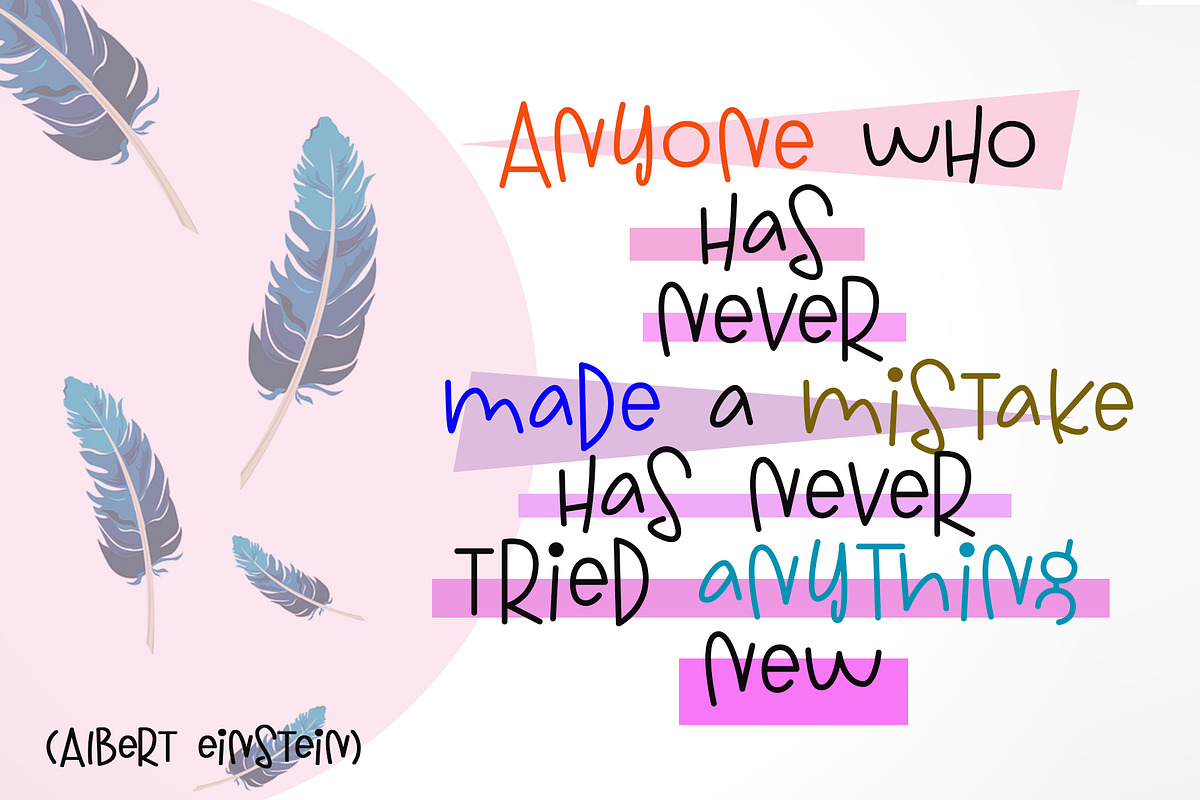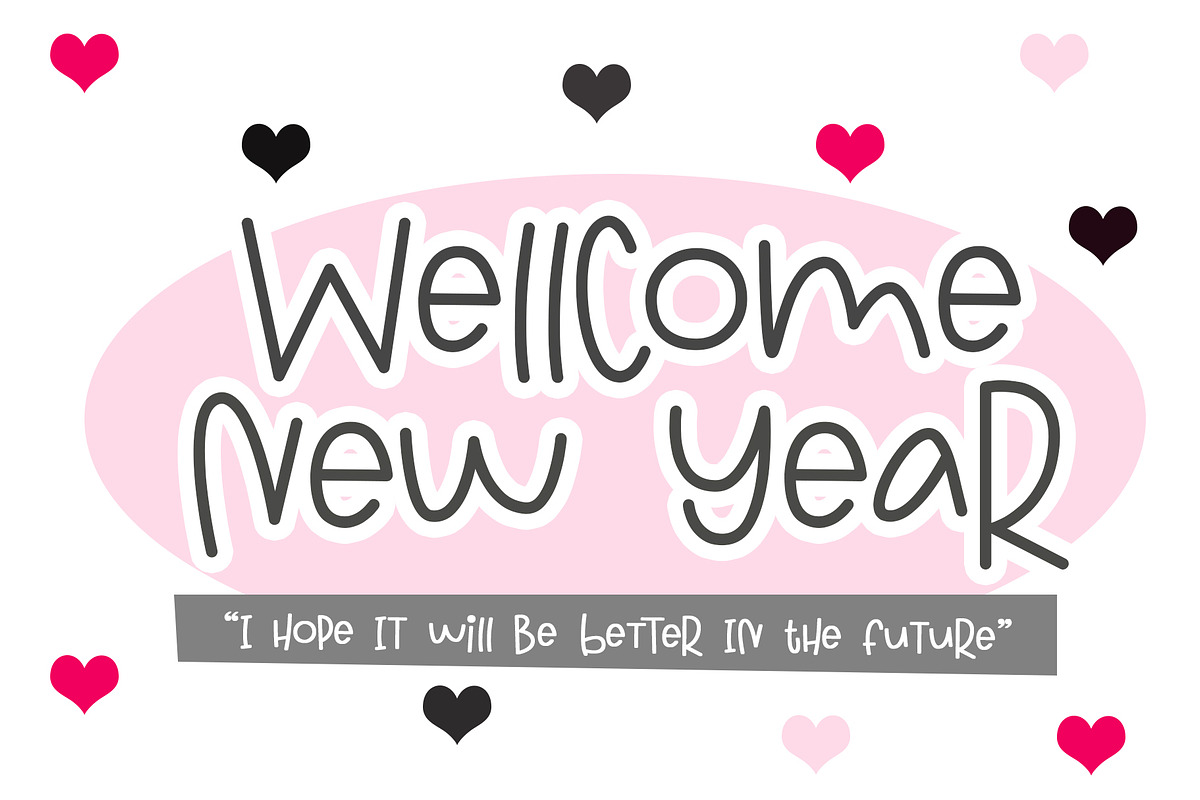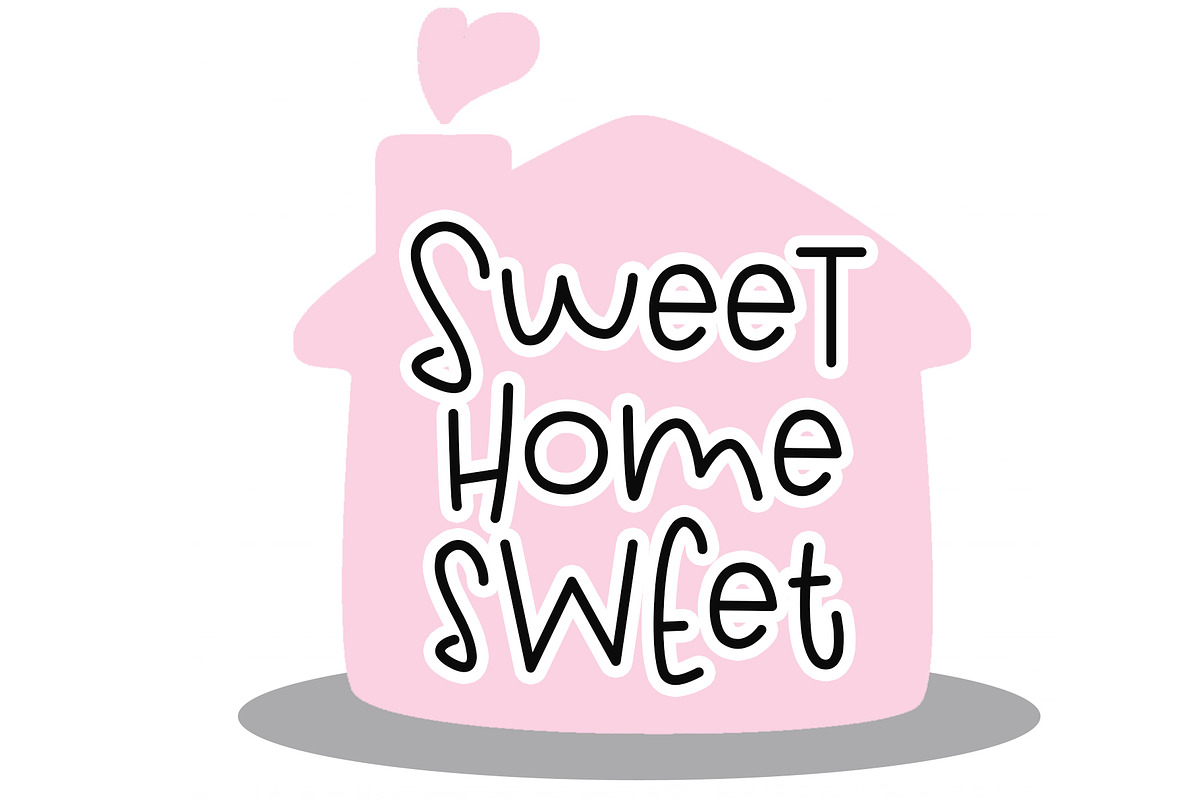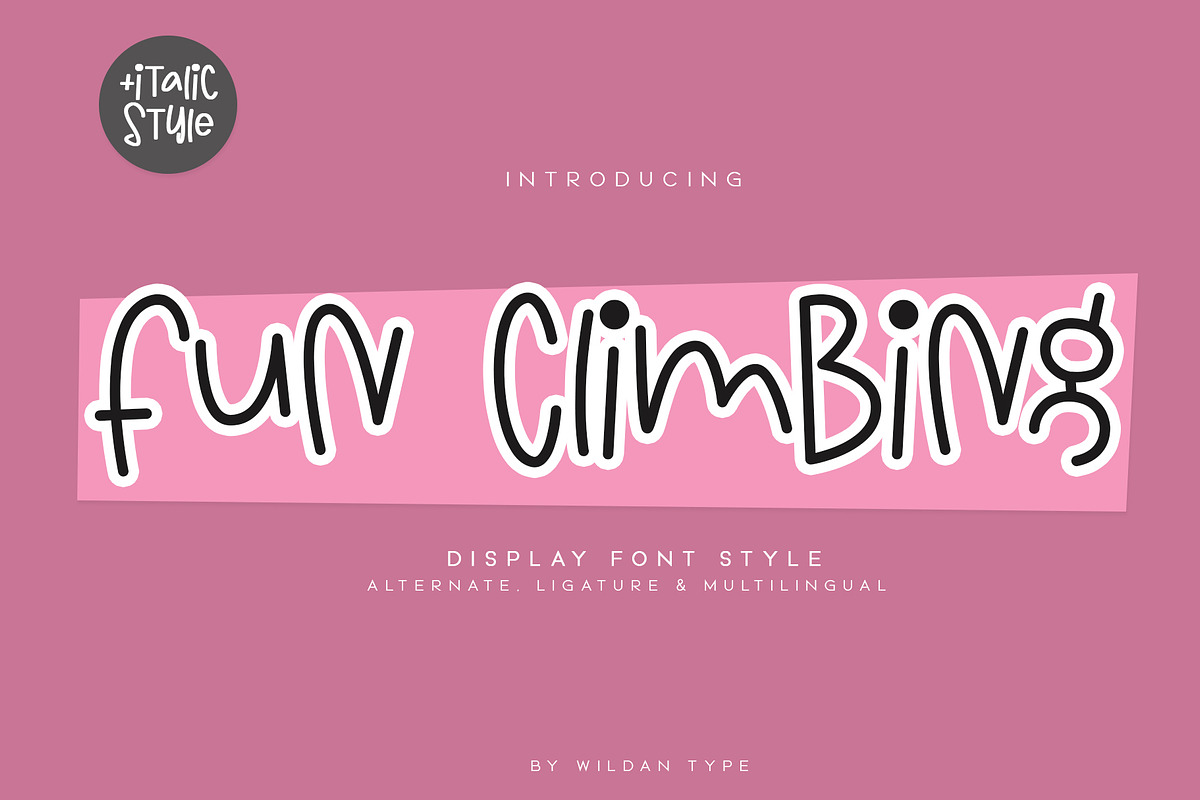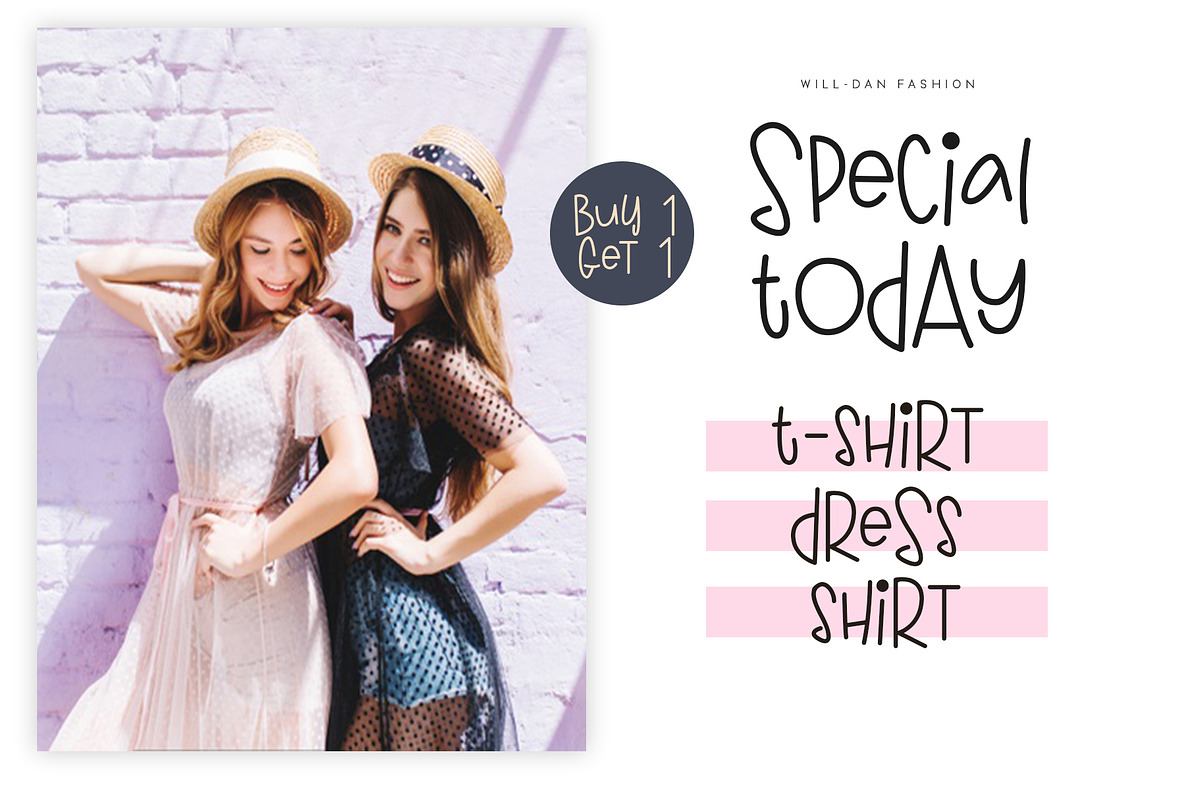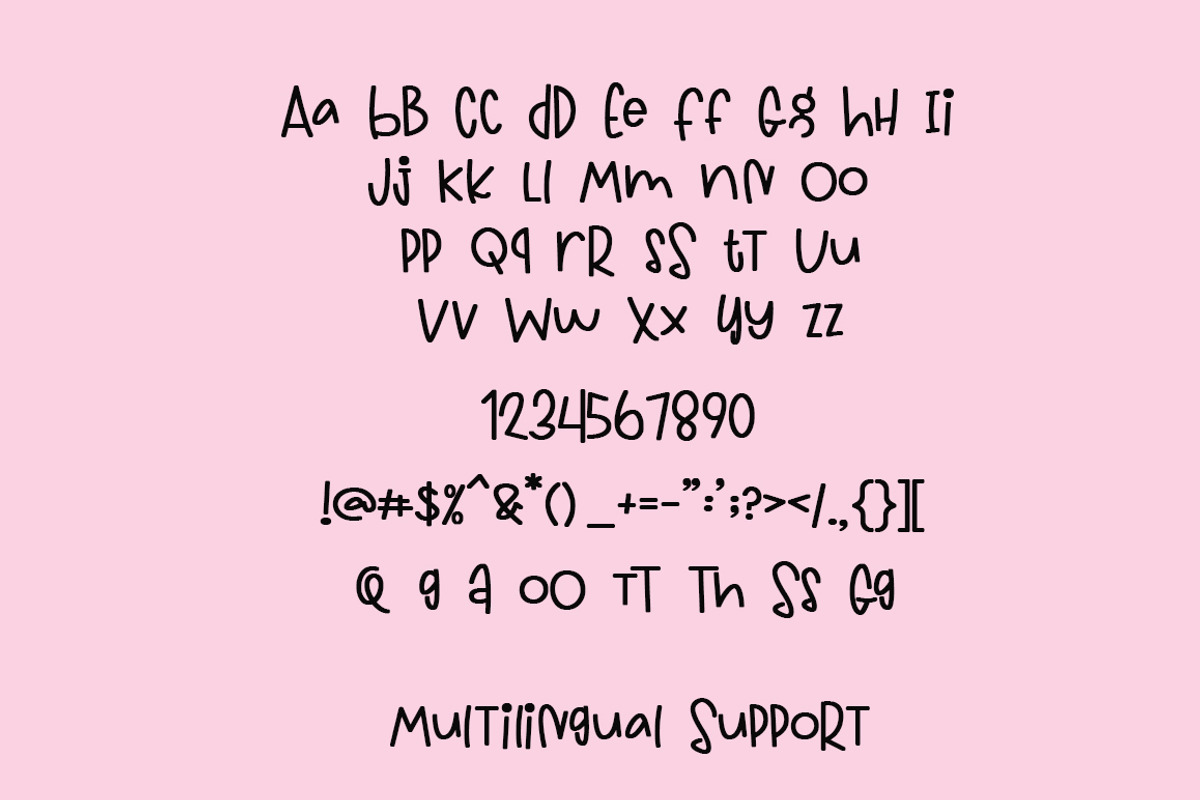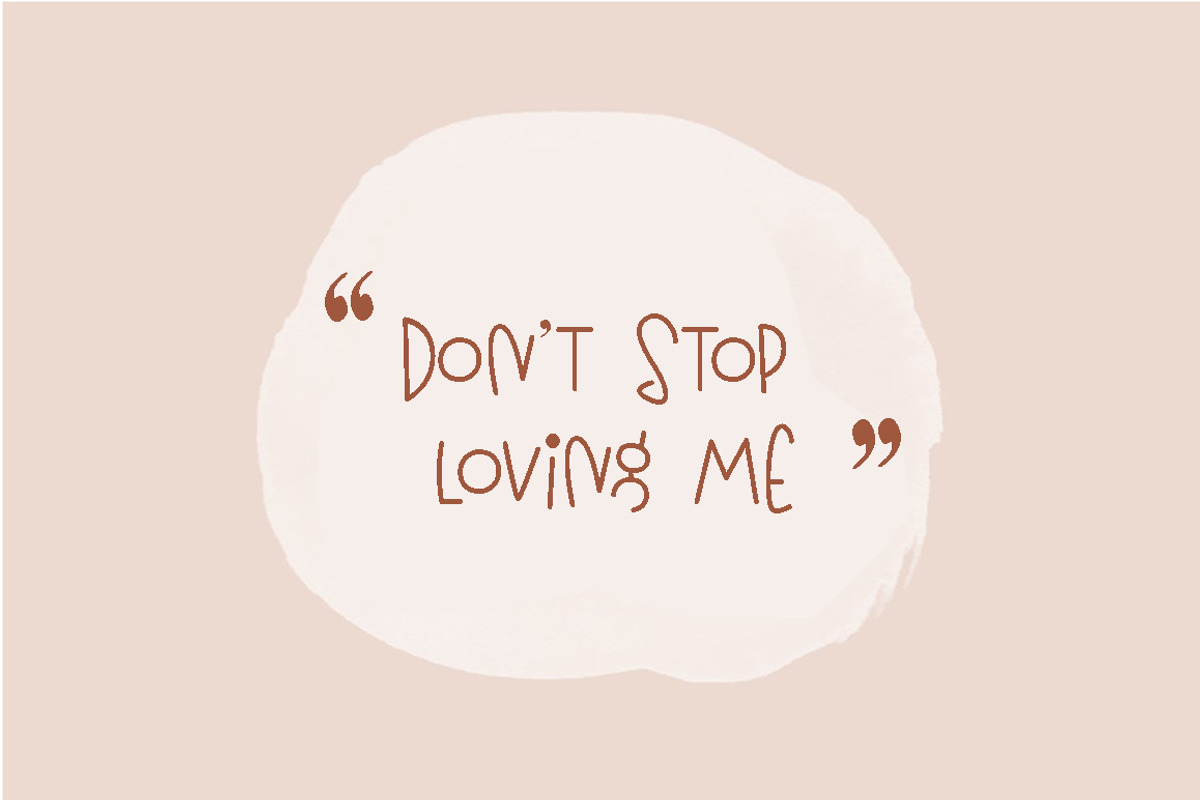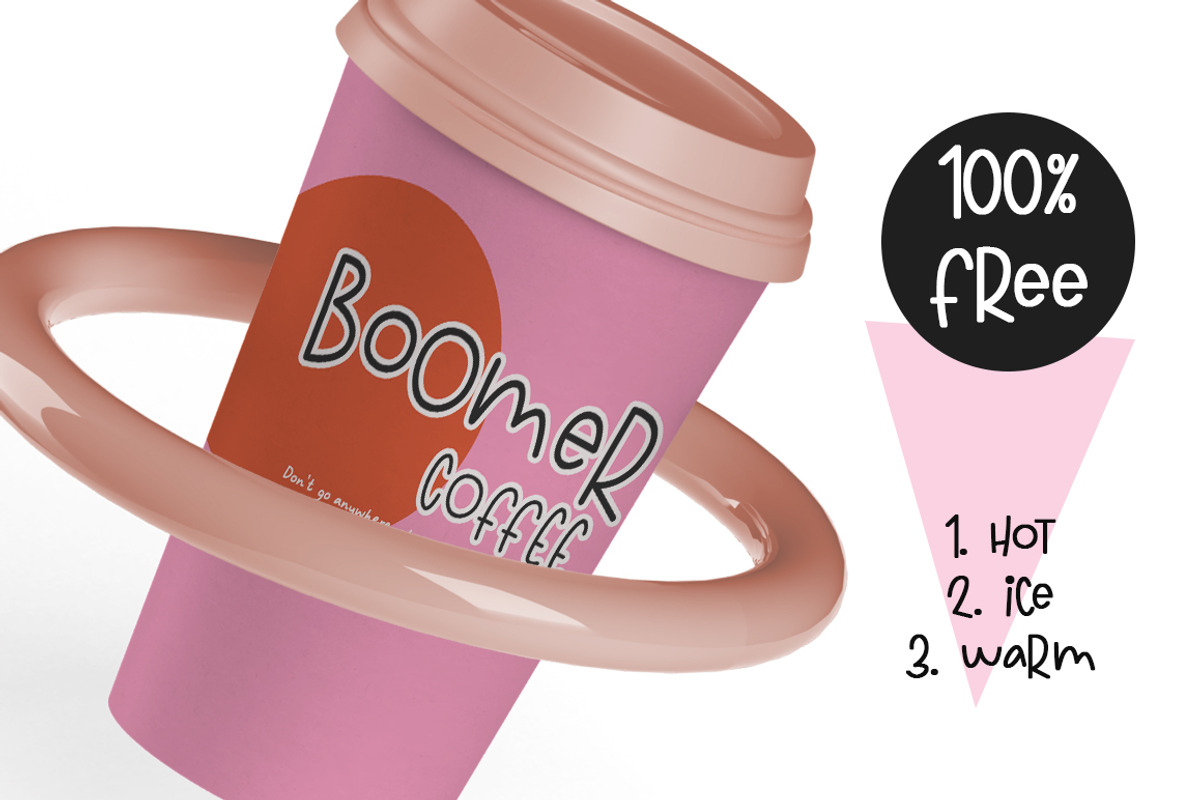
Fun Climbing
Fun Climbing is a handwritten font. The letters are fun and unique. Use Fun Climbing to get a more funny look
This font is perfect for quotes, headings, blogs, logos, invitations and more!